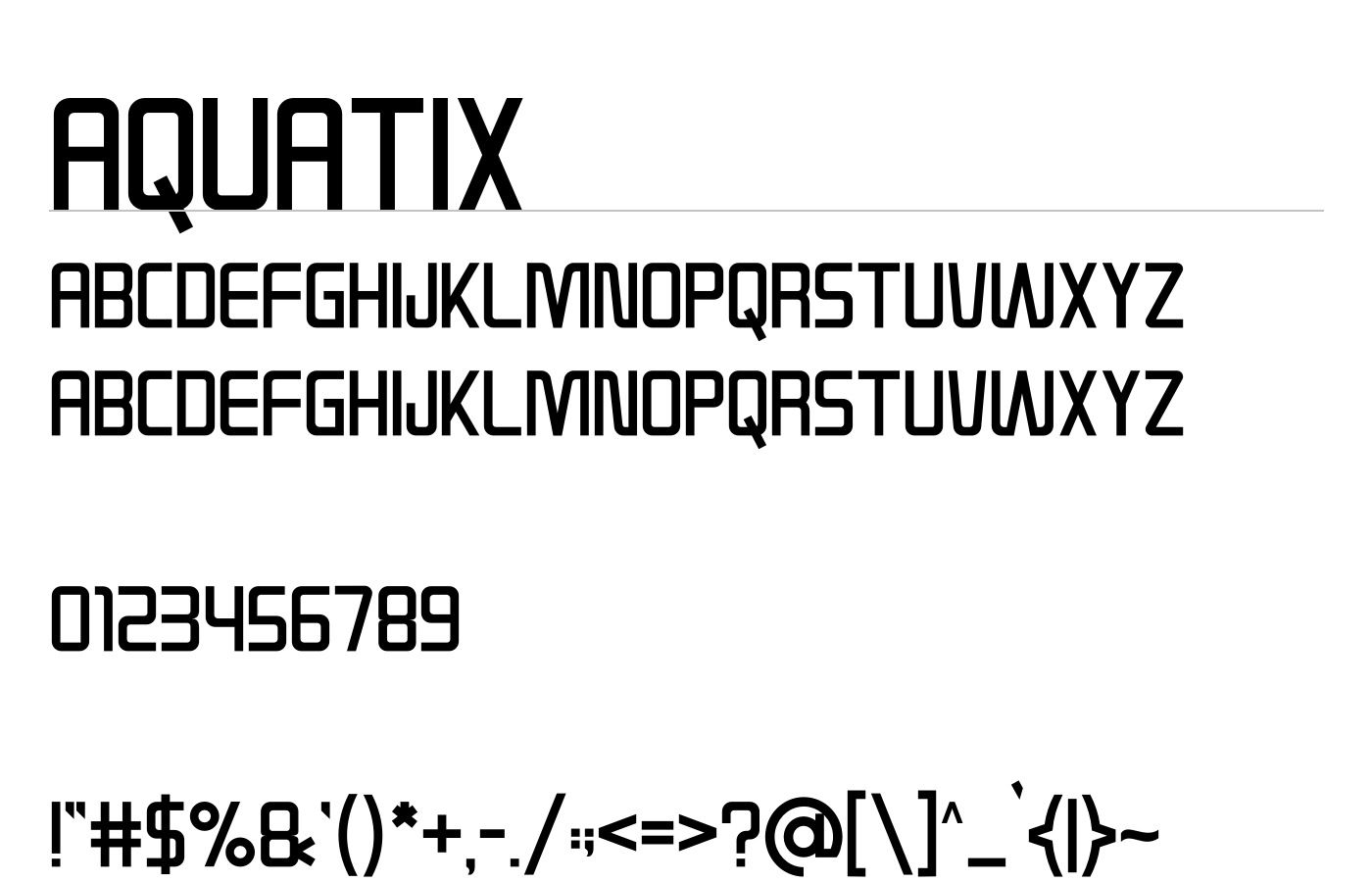
Aquatix is a sleek, modern sans serif font with a narrow, condensed structure and a strong geometric feel. Its uniform stroke weight and sharp edges give it a futuristic, technical vibe, making it ideal for contemporary branding, technology-themed designs, and digital interfaces where a clean, crisp look is essential. This font works especially well in headlines and logos that require a distinctive, space-efficient style with good readability.
Aquatix Font
About Aquatix Font
| Font family | Aquatix Font |
| Designer | Akhmad riyan danuarta |